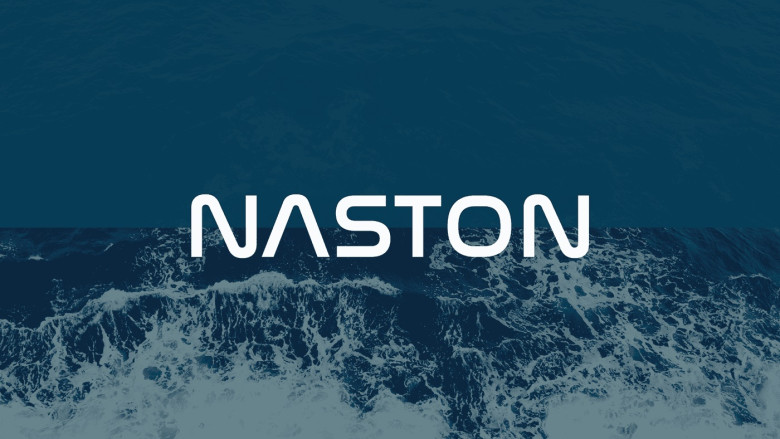
Naston Font
Naston Font is a futuristic font featuring uppercase and lowercase characters as well as numbers and punctuation marks, adding both drama and sophistication to title designs. This font works equally well when scaled down or up.
This versatile font can be utilized in many projects, including logos and invitations. Additionally, it works well in magazines, photography shoots, cards, product packaging mockups and mugs.